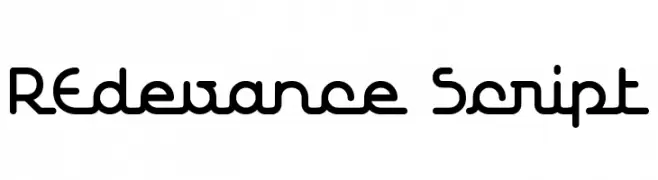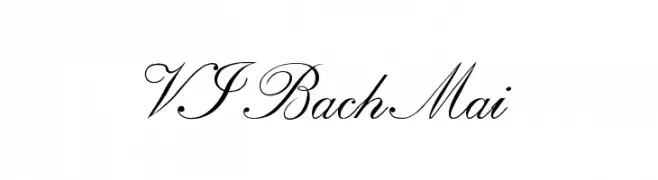
A whimsical, elegant cursive font with flowing, artistic strokes.
A playful, interconnected font with a modern and flowing design.
A dramatic and ornate Blackletter font with intricate flourishes.
A decorative and abstract font with geometric and directional motifs.
Hand-drawn, abstract face sketches used as letterforms.